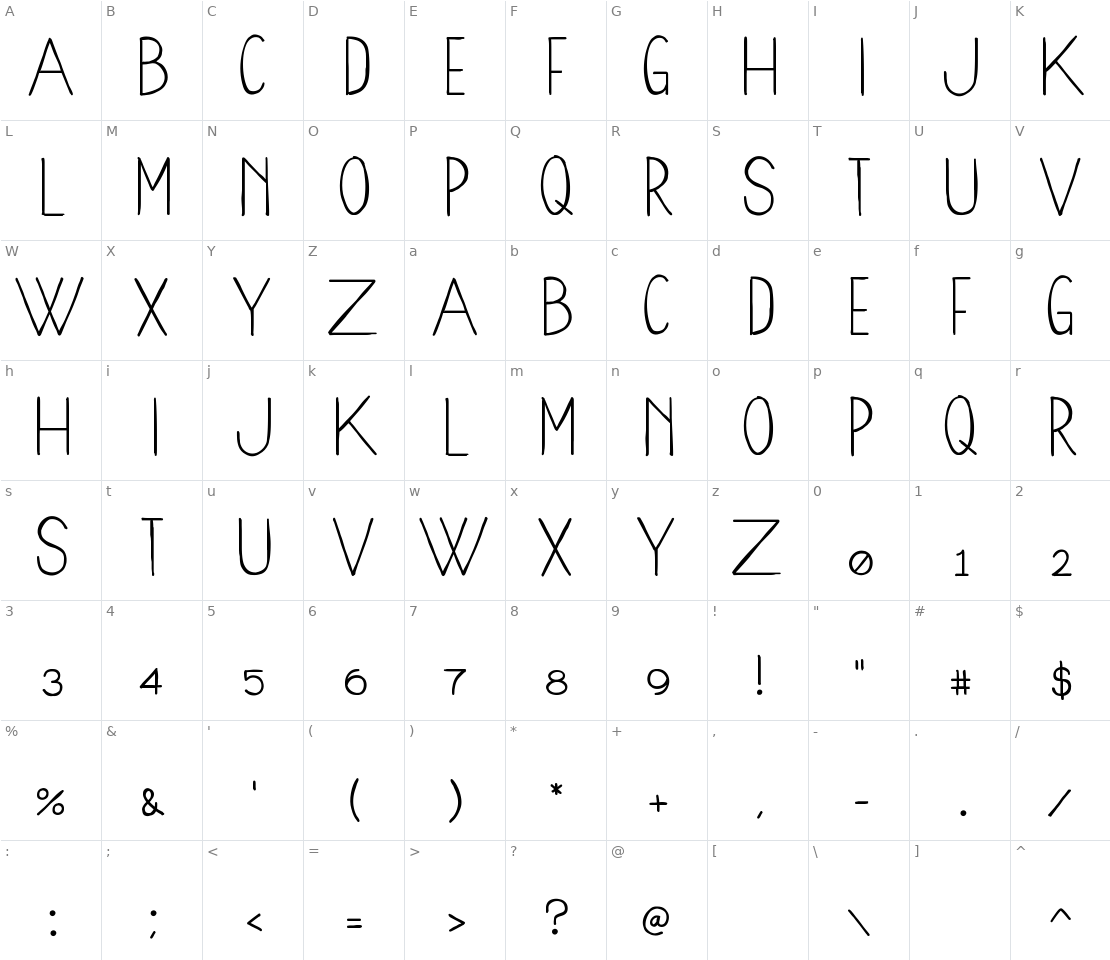
Wood Cabin
Wood Cabin is a thin, condensed novelty face from Jake Luedecke with hand-drawn letterforms that feel like they were scratched into a wooden sign with a pocket knife. The narrow proportions and light weight keep it airy and informal, with enough quirk in the strokes to give it genuine rustic character. Best for headlines, labels, and packaging where you want something that feels like it came from a small-town general store.